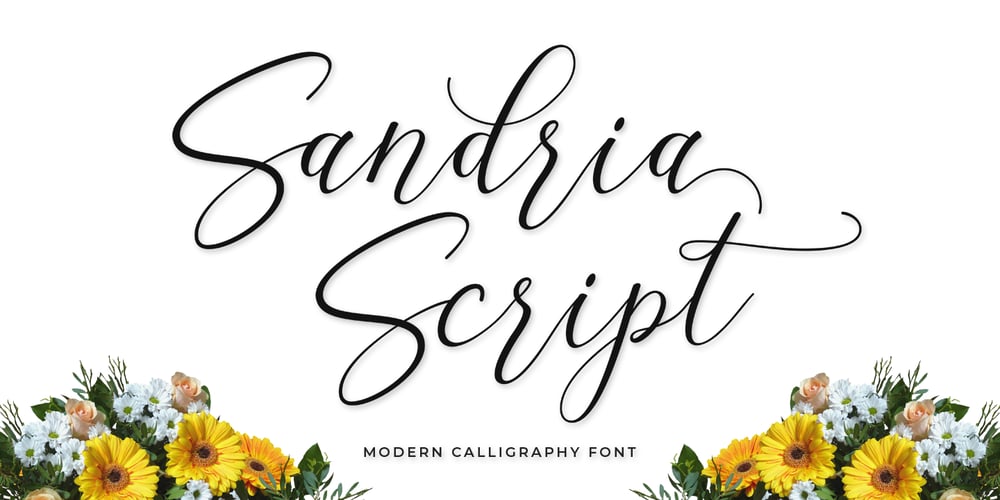
Sandria Script
Sandria Script font
Sandria Script Font Family was designed by Muammar Kadafi and published by Attract Studio. Sandria Script contains 1 styles and family package options. Introducing the latest styles Sandria Script, a sweet calligraphy font, casual and dynamic with a dancing baseline, This font can be used easily and simply, perfect for Branding, Logos, Greeting Cards, Wedding Stationery, Quotes etc.